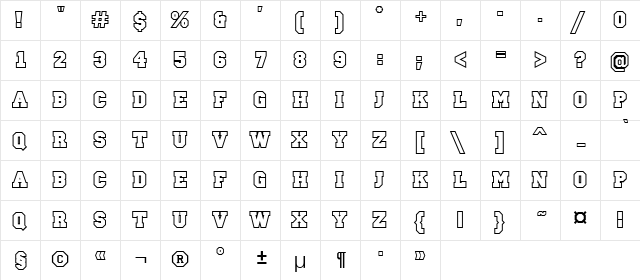
CampusOtl Bold
Design Context for CampusOtl Typeface
CampusOtl is a composed and adaptable typeface that performs quietly and consistently across a wide range of design contexts. Its bold stroke weight gives it real presence on the page.